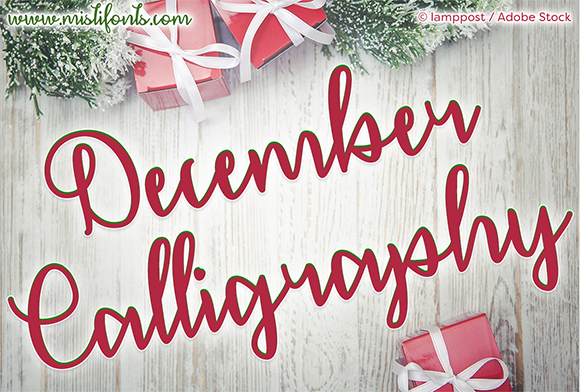
December Calligraphy Font
About December Calligraphy Font
December Calligraphy is a festive calligraphy font that is great for a variety of projects that need an added touch of elegance and charm! Handmade, December Calligraphy is a great asset to have for your holiday projects.